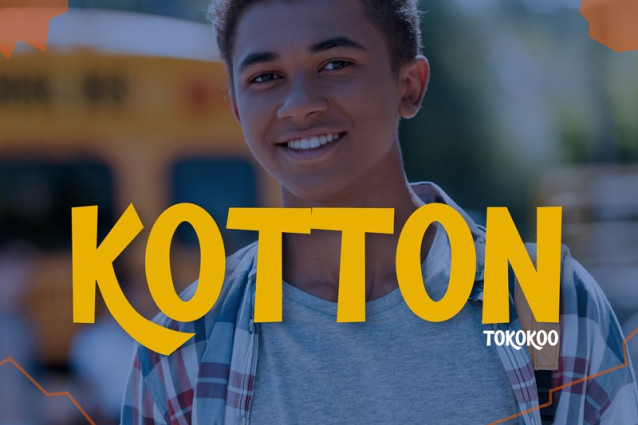
Kotton Font
Kotton Font is a cheerful handwritten display font with a warm and expressive style. Its rounded shapes create a soft look, and its natural strokes add lively energy. Moreover, the letters stay clean and readable, which helps every message feel direct and friendly. This unique balance makes the font stand out. It feels youthful, bold, and simple at the same time. Kids Font Kotton also adapts easily to various design themes. Whether used on photos, posters, or school graphics, the font keeps the layout bright and engaging. Therefore, it becomes a strong choice for creators who target kids, teens, and family-oriented audiences.
Kids Font Kotton brings a relaxed handwritten tone that fits modern youth visuals. Each letter flows with smooth curves and generous spacing. Additionally, its soft edges make the font feel approachable and warm. This helps designers deliver messages that feel honest and cheerful. The clean structure also ensures readability, even on colorful or busy backgrounds.
In your sample previews, the font shows strong versatility. It works for teen hangout posters, school events, product displays, and friendly lifestyle graphics. Furthermore, the font adds movement when placed on photos, then creates bold contrast when used on simple color blocks. This flexibility allows it to support many design moods—from casual to energetic.
Moreover, the font suits youth fashion brands, school clubs, community programs, family stores, and student activities. It helps any visual look brighter and more positive. Next, it can enhance social media posts, event banners, digital ads, retail displays, or product packaging for kids. Therefore, Kotton becomes a helpful tool for anyone building friendly and modern youth-centered visuals.